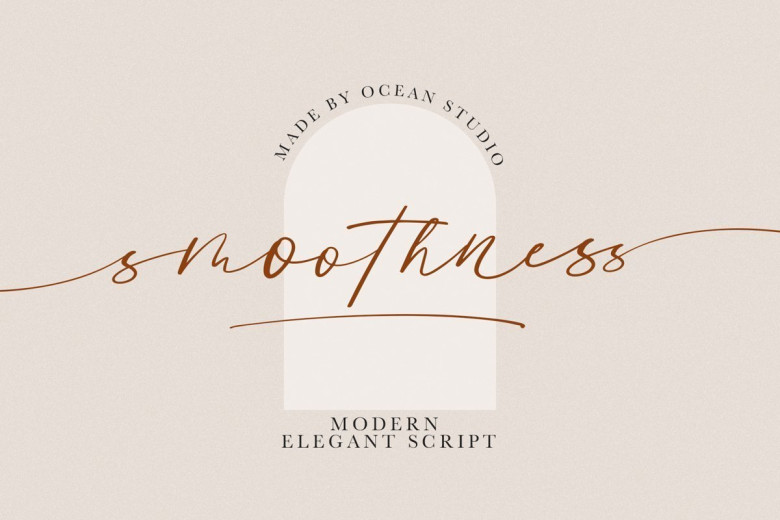
Smoothness Handwritten Script Font
Introducing Smoothness Handwritten Font is a script font. Smoothness is equipped with plenty of Open-type features: To activate the alternates click on Swash, and Stylistic Alternates in any Open-type savvy program or manually select the characters from Glyph Palette.